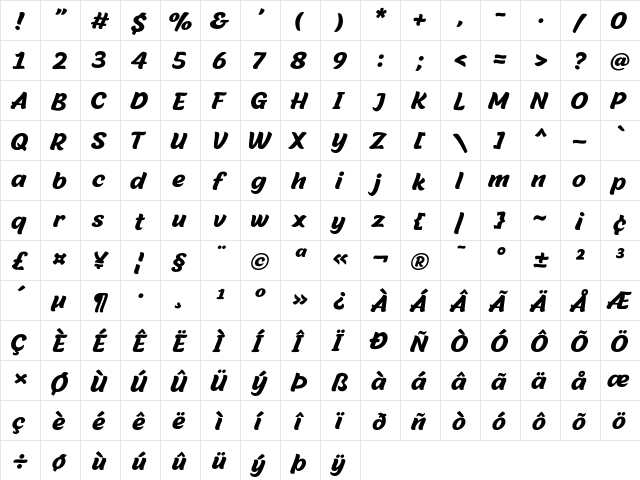
Malvie Regular
| Designer | Eko Bimantara |
Design Context for Malvie Typeface
Malvie takes a measured approach to typography — its balanced proportions and neutral character make it a reliable workhorse for both digital and print work.